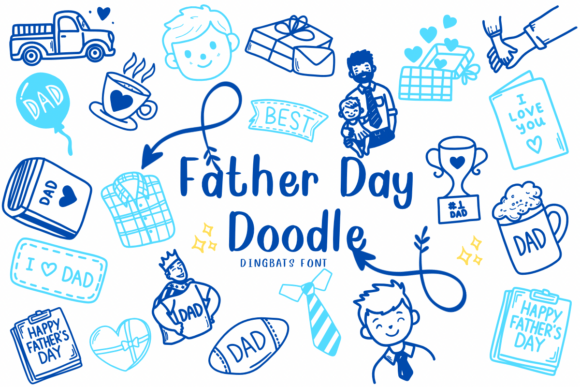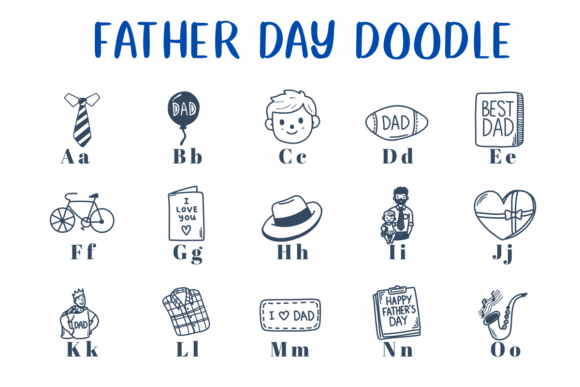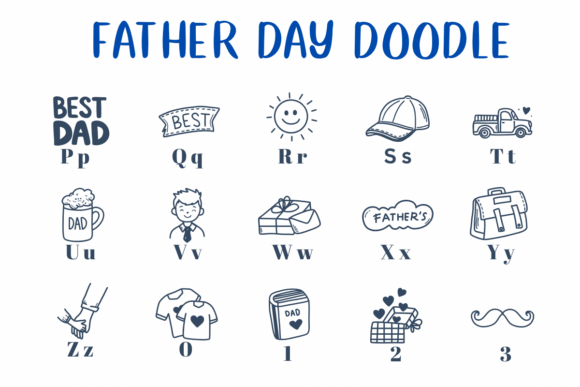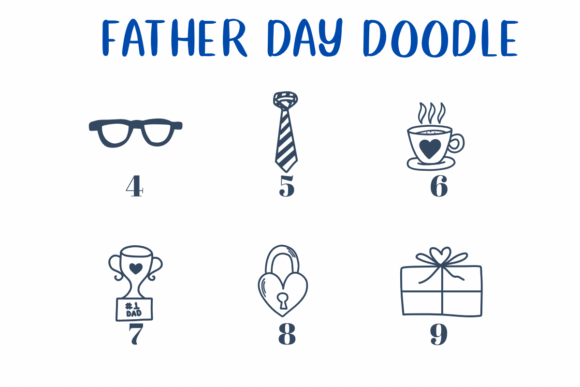
Father Day Doodle Font
About the Father Day Doodle Font
Welcome to the world of Father Day Doodle Font, a typeface that will inspire your next great project. Father Day Doodle is a dingbats font with a lovely theme. This font can enhance your creative projects such as wedding invitations, DIY, crafts, decorations, logos, and many other creative ideas.
Father Day Doodle’s playful, hand-drawn style works best for headlines, short text blocks on invitations or packaging, and logos needing a friendly, approachable feel. It’s ideal for projects targeting a younger demographic or those with a lighthearted, celebratory tone. Avoid using it for body text or lengthy paragraphs; its informal nature makes extended reading difficult.
The font’s inherent charm pairs well with clean sans-serif fonts like Open Sans for a balanced contrast, or a more elegant serif like Playfair Display for a sophisticated touch. For a more whimsical effect, consider pairing it with a handwritten script font, but ensure legibility remains a priority.
Its overall personality is best described as friendly and approachable, making it perfect for brands focused on family, celebrations, or handcrafted goods. Avoid using it for projects requiring a serious or corporate feel.
Father Day Doodle Font Usage Examples
Father Day Doodle Font Example